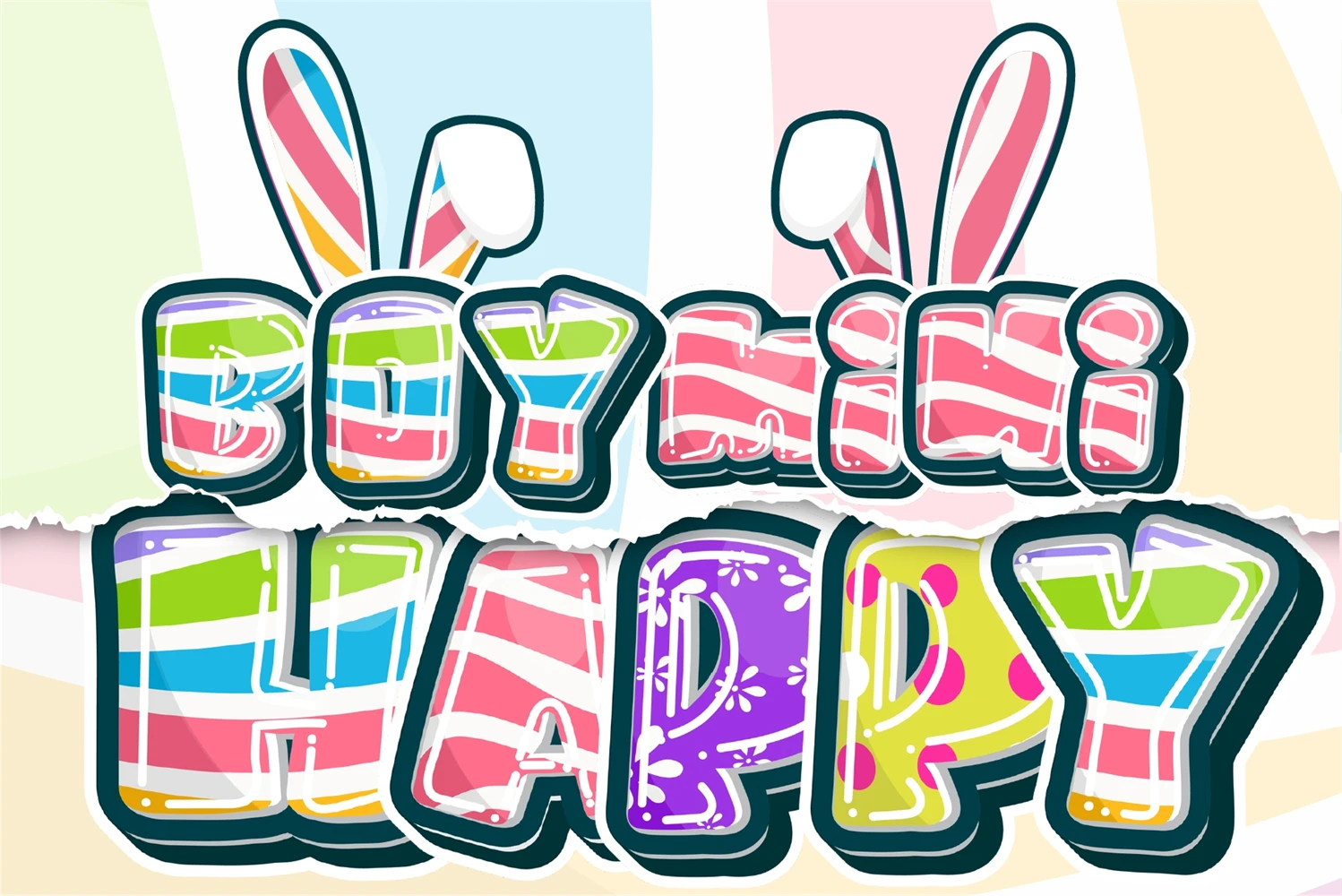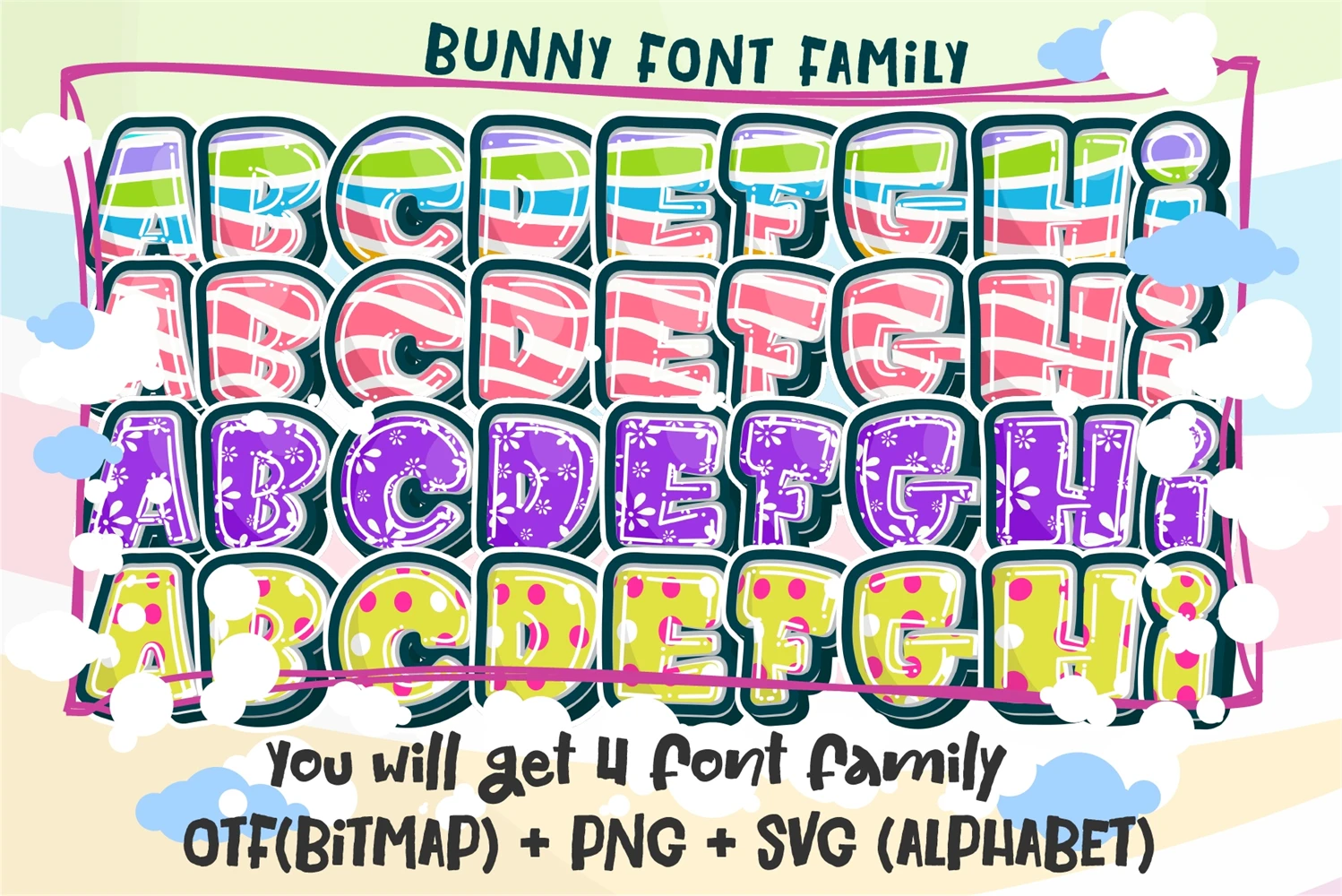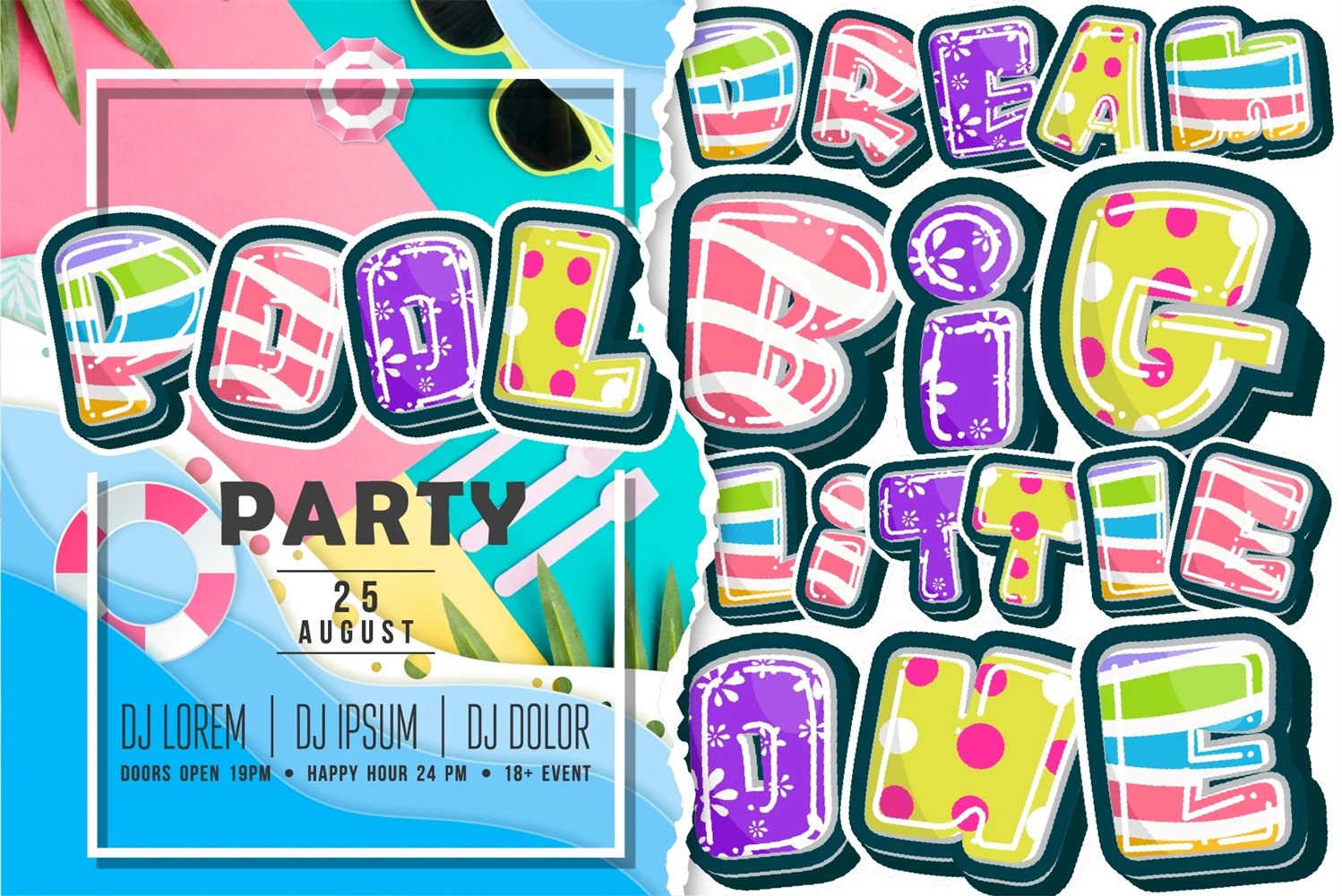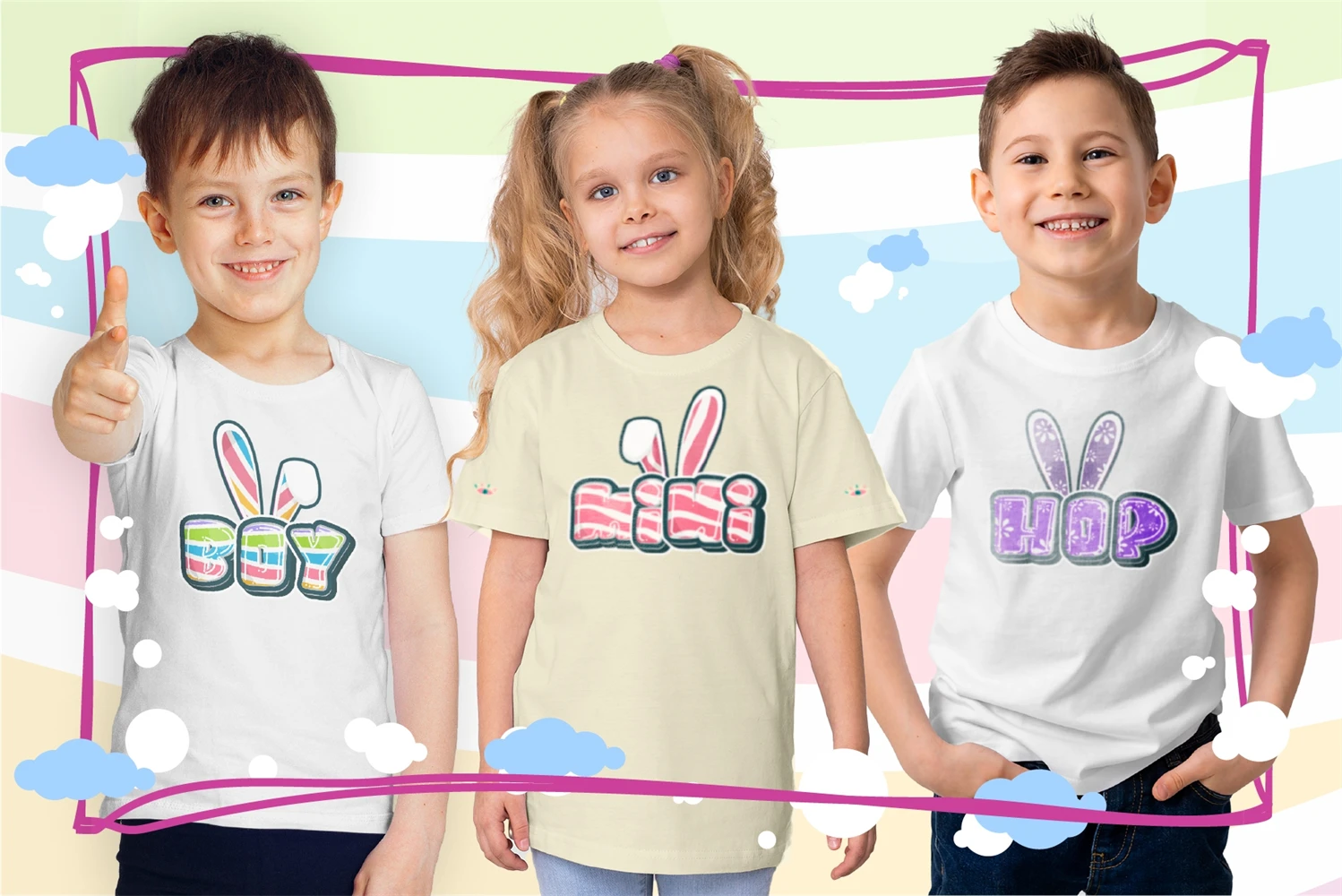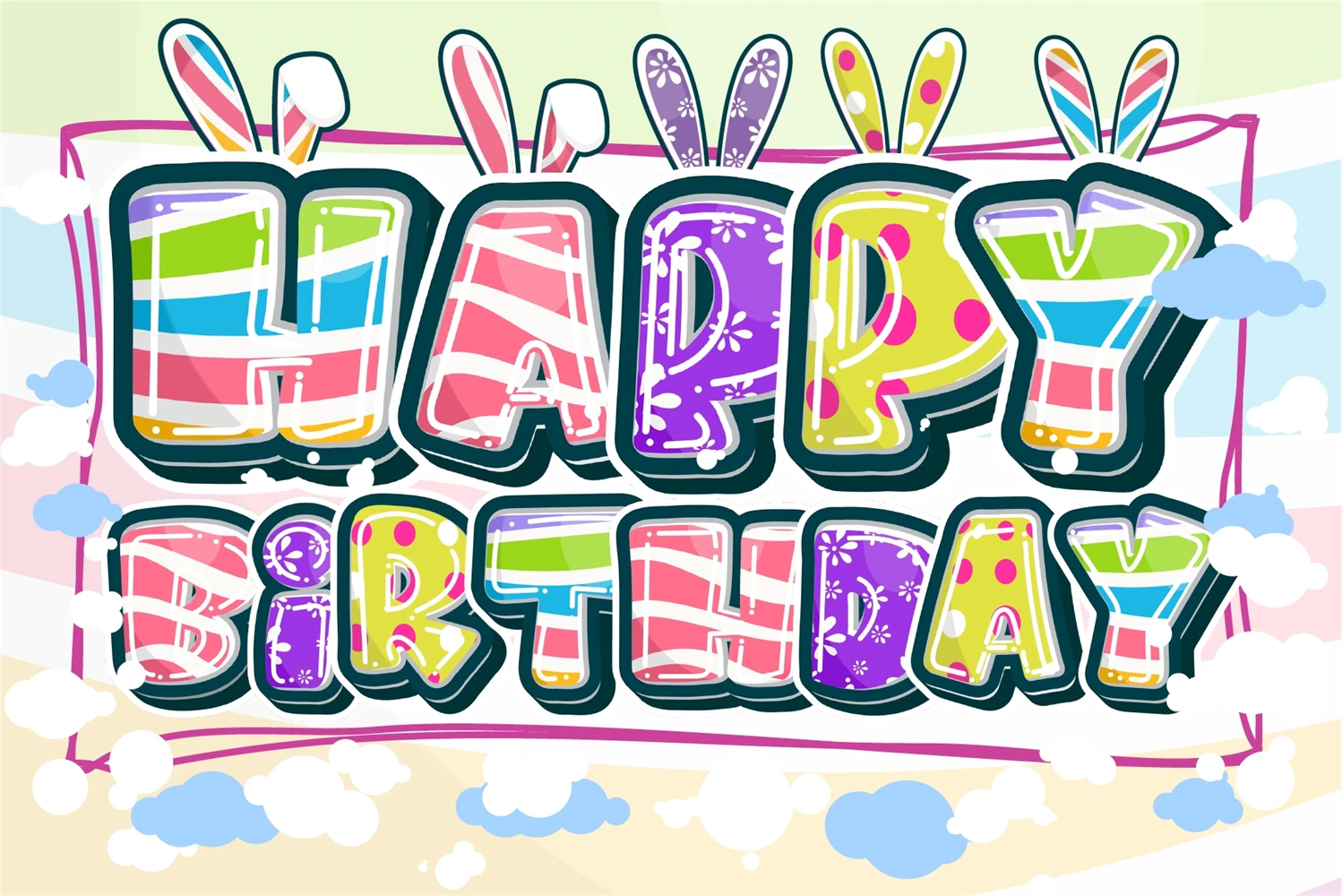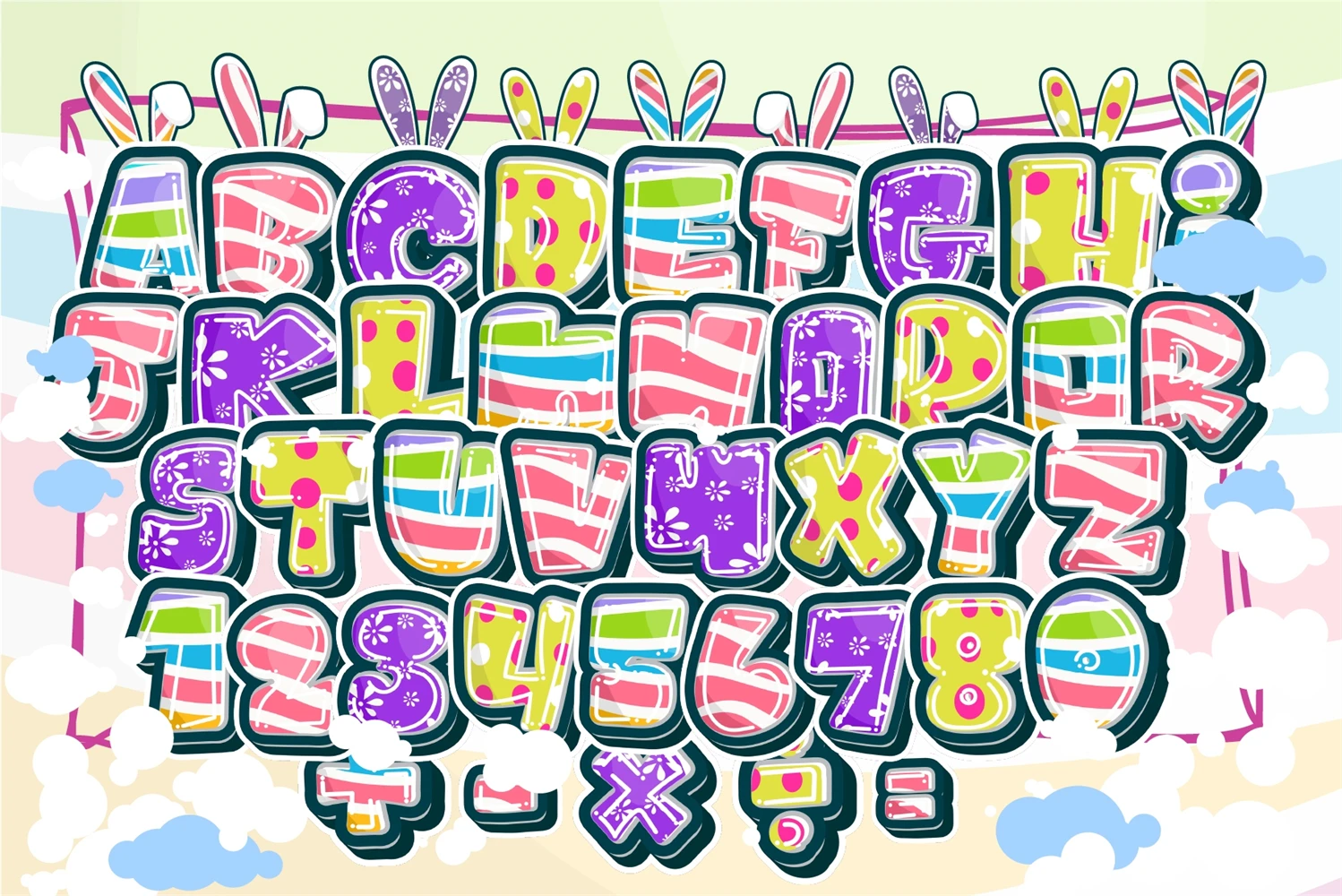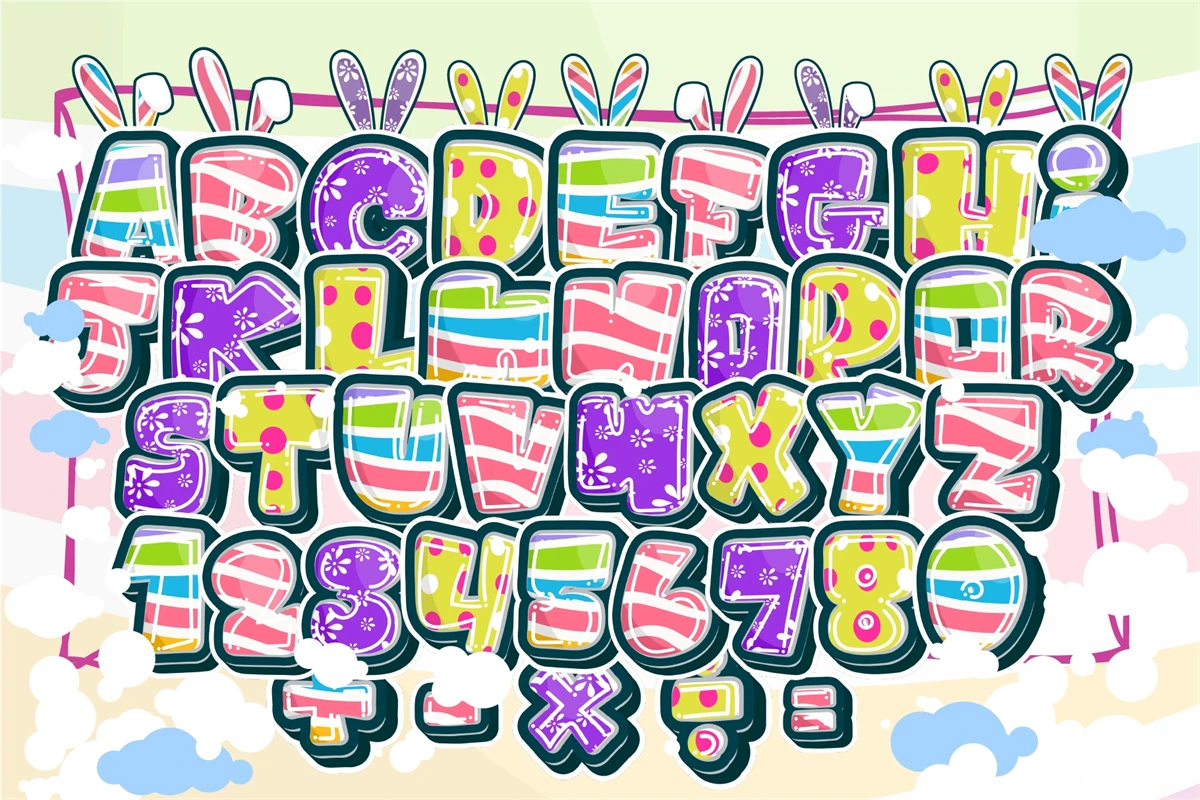
Bunny font is a delightful typeface capturing the essence of Easter and beyond. With whimsical strokes and adorable bunny-themed characters, its perfect for adding sweetness to designs. Whether for Easter cards, childrens books, or playful signage, Bunny font brings a smile to your creations.